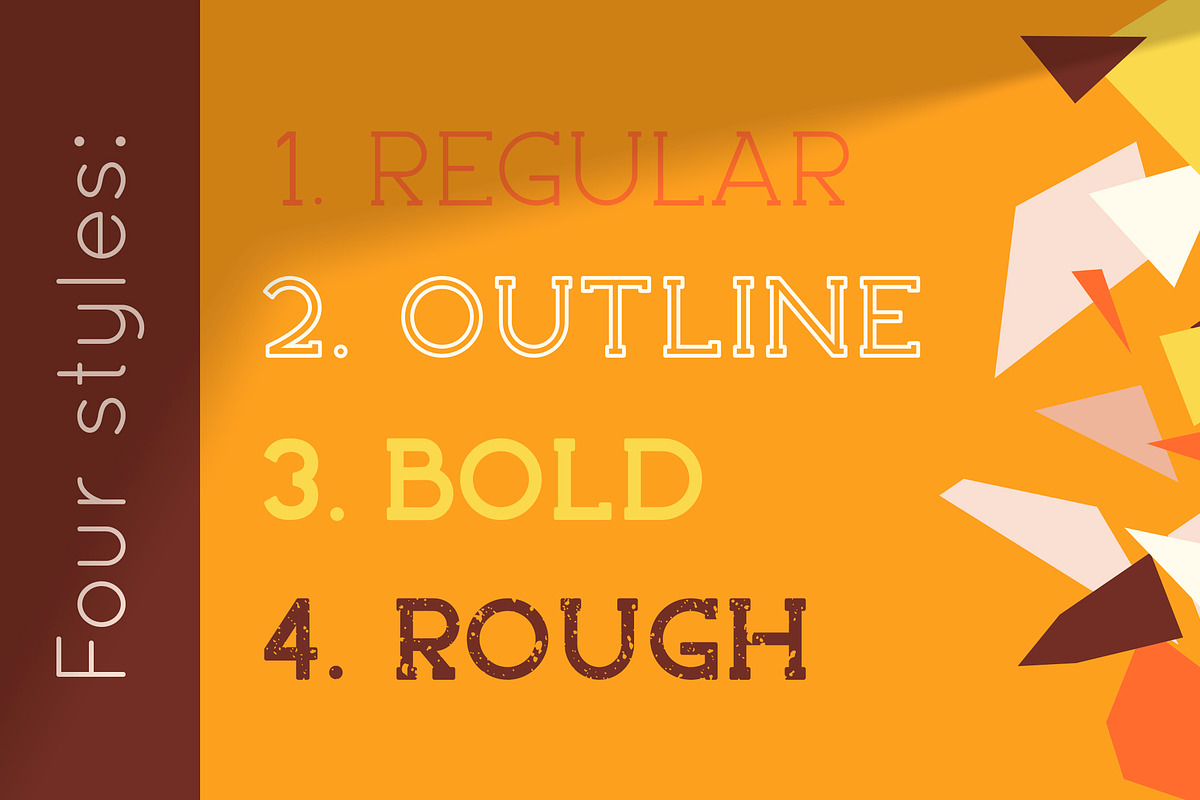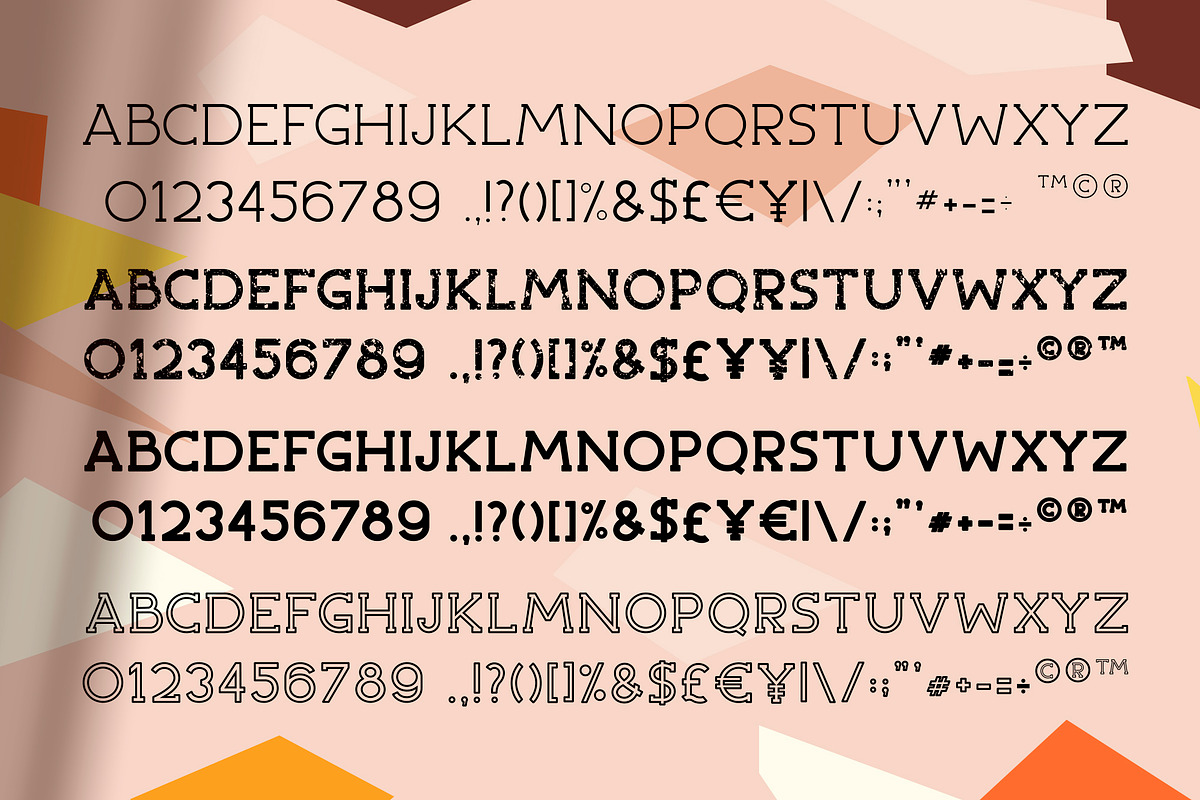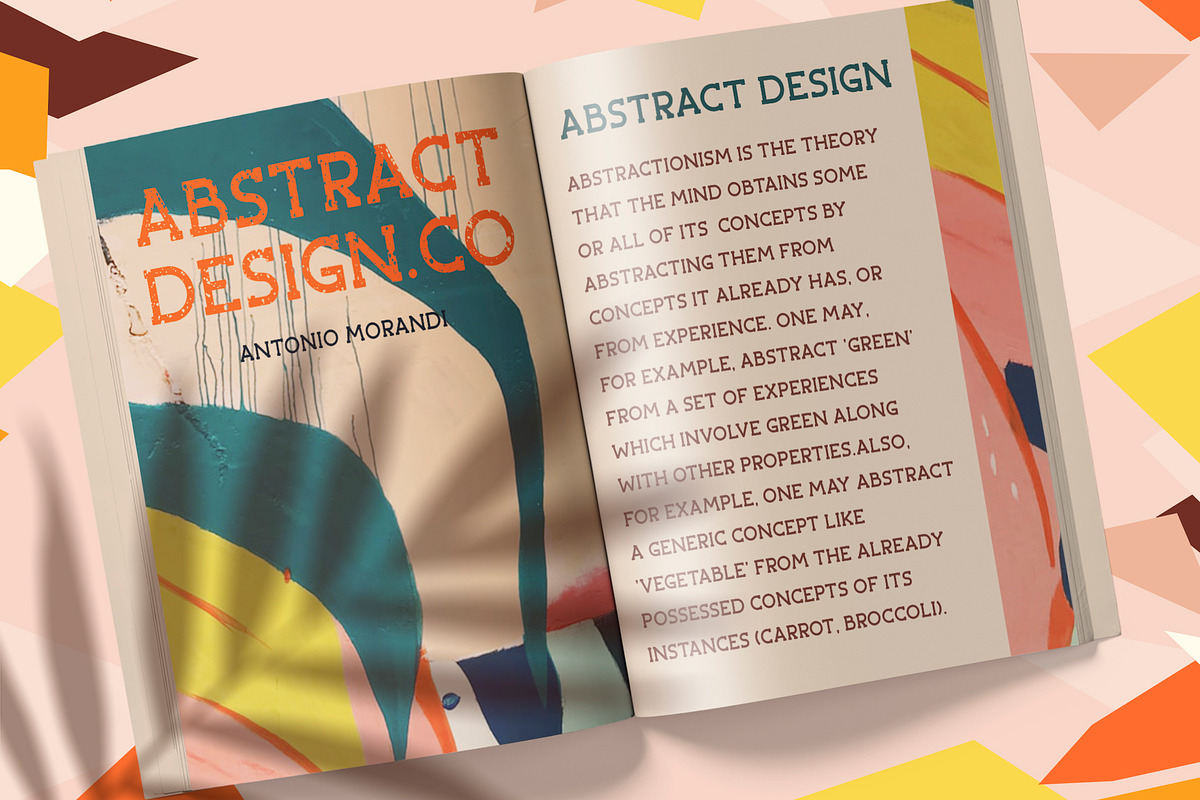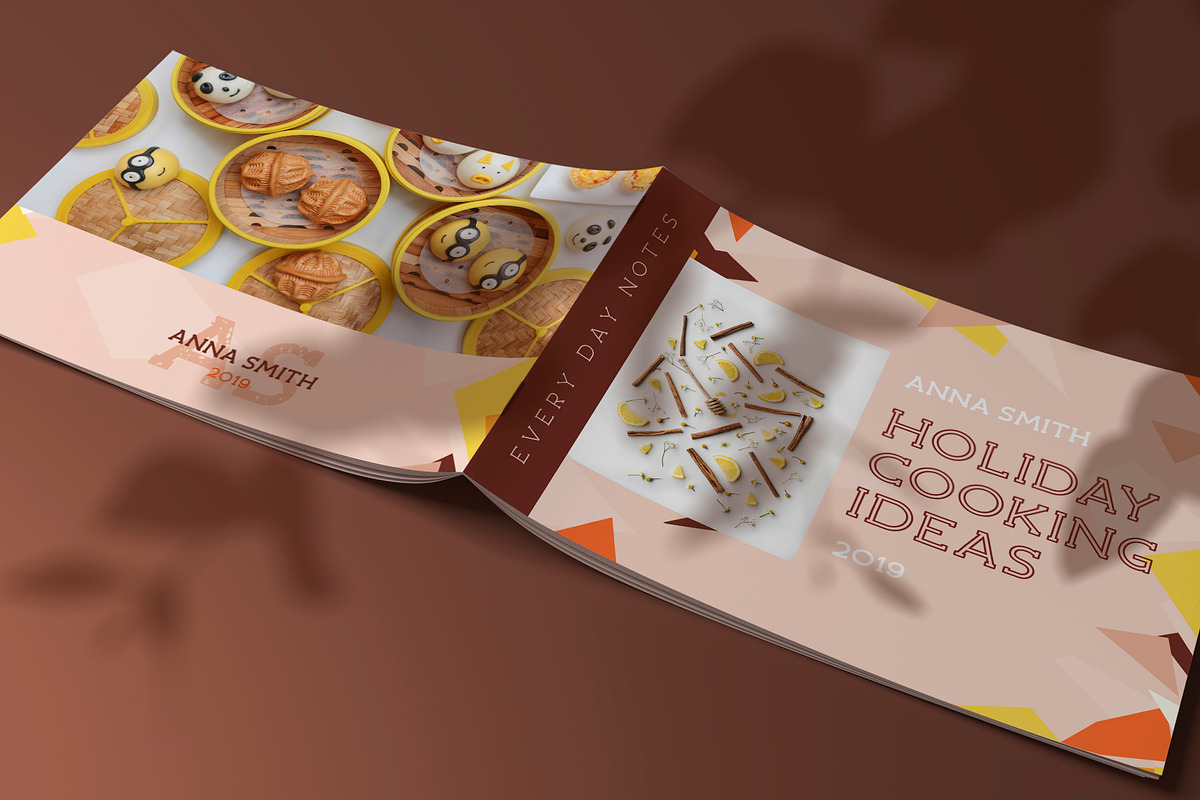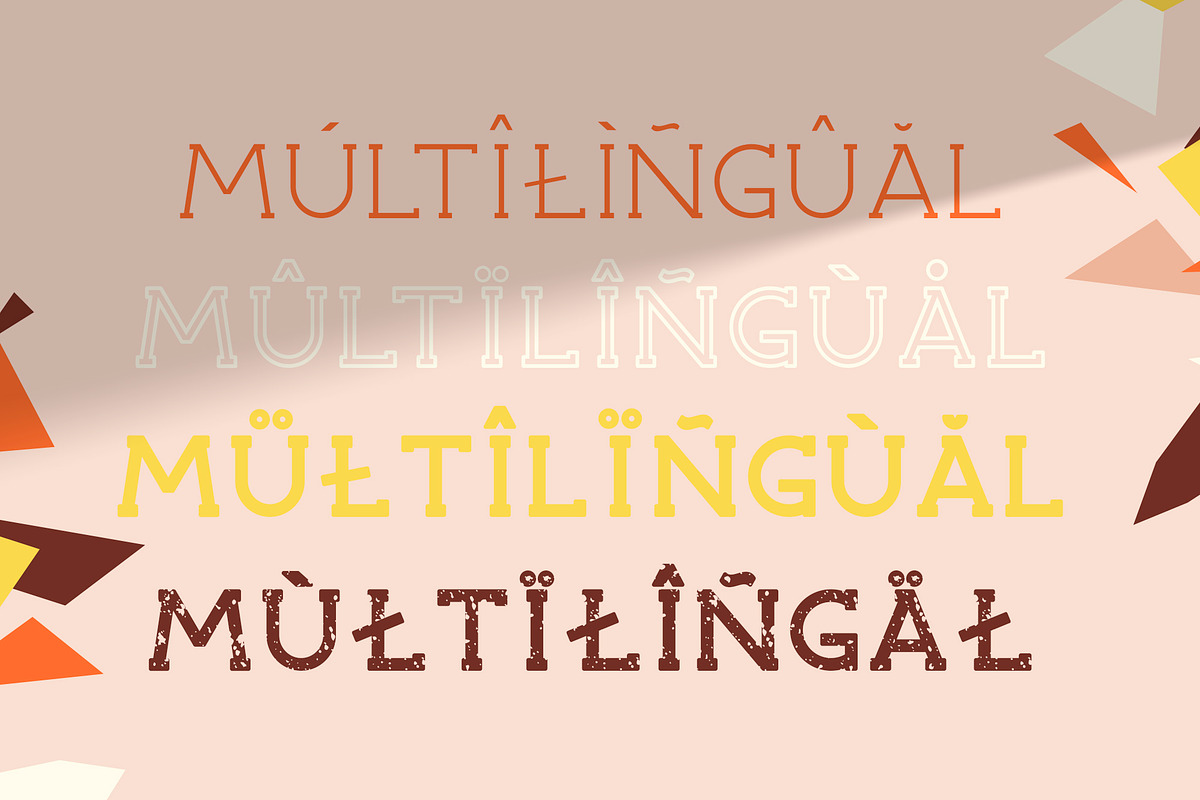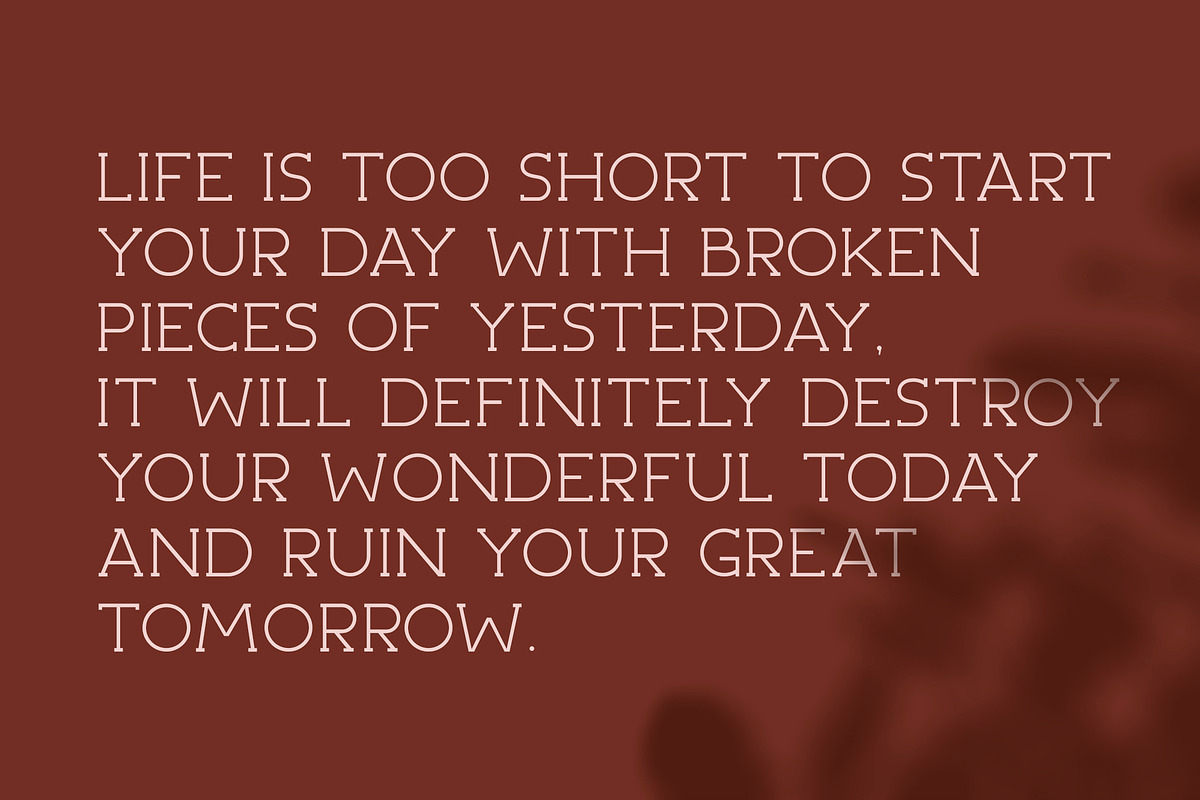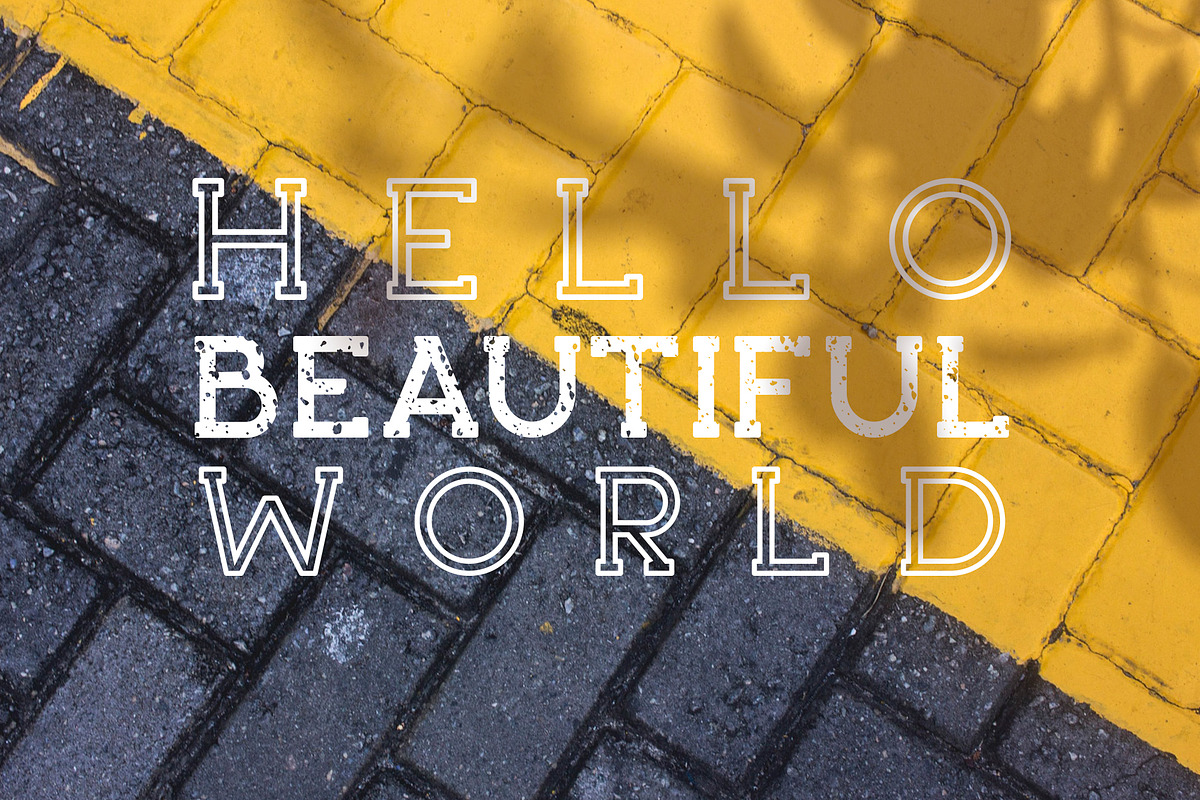
ABSTRACT - Fresh Serif Font Family
ABSTRACT is serif round font family that is very universal and modern at the same time. It is perfect for designers looking to leave an impression. A simple but significant. ABSTRACT is the owner of endless possibilities. Great for magazine publishing, posters, flyers, logos, headlines, packaging, advertising, branding and so much more.
ABSTRACT hosts 4 different styles:
Every font has uppercases, numbers & basic punctuation, multilingual support (French, German, Italian, Norwegian, Portuguese, Spanish, Swedish, Swiss German).
- ABSTRACT Regular
- ABSTRACT Bold
- ABSTRACT Outline
- ABSTRACT Rough